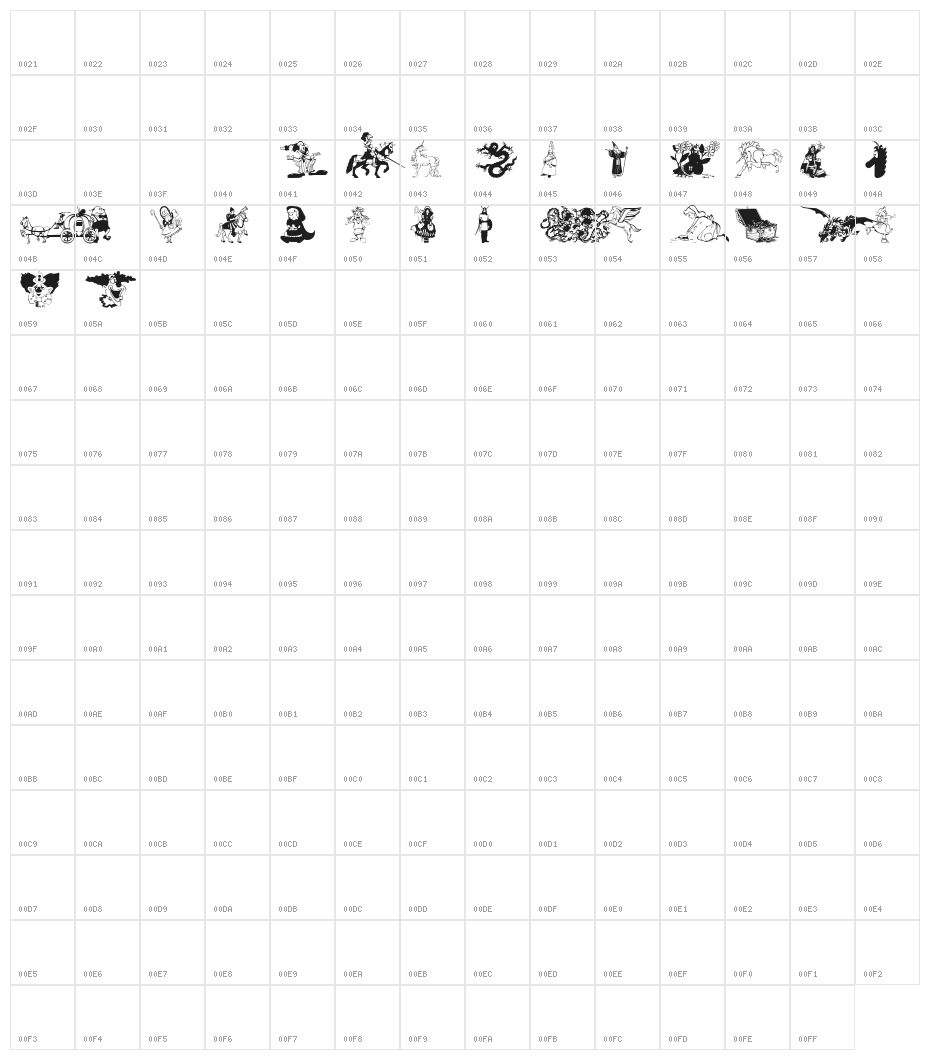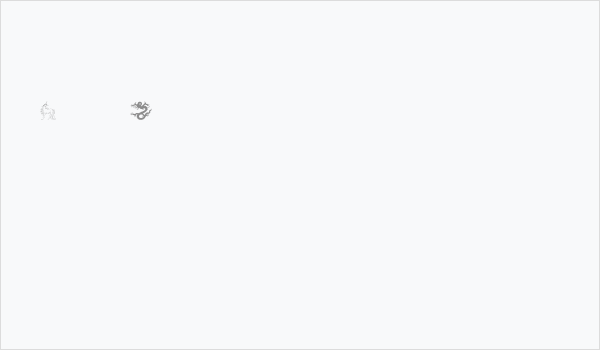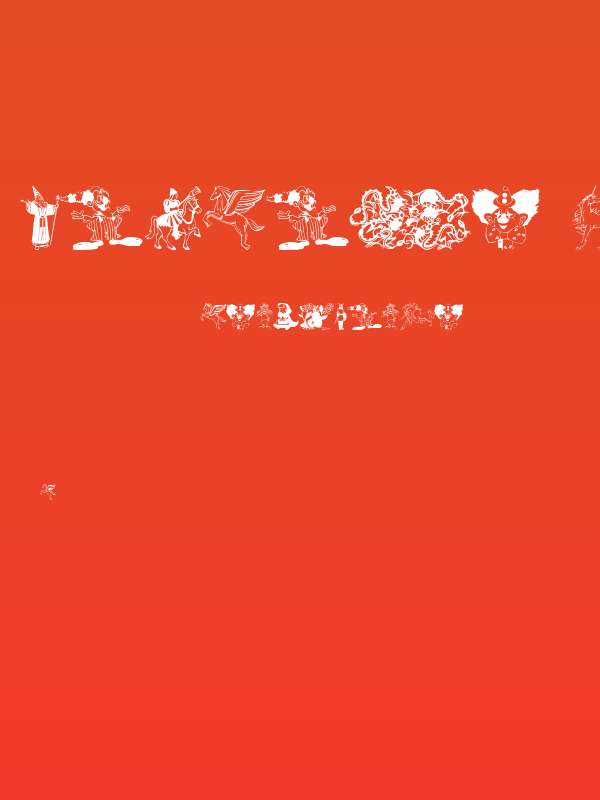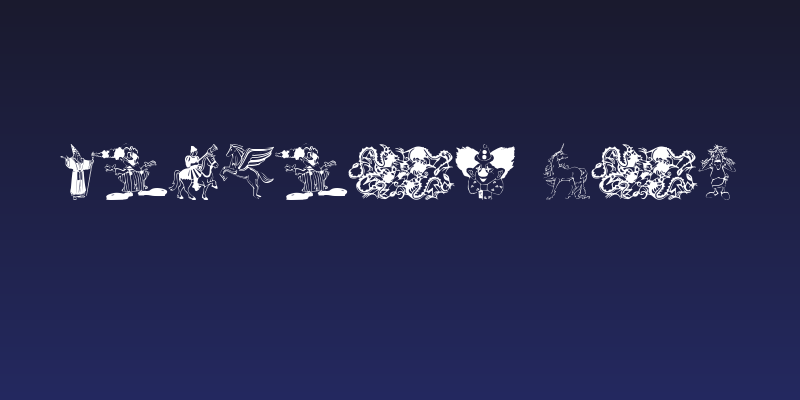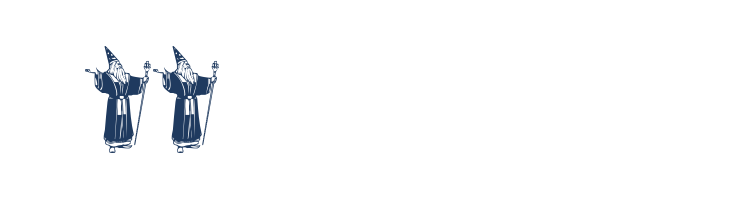
fantasy_csp Font
fantasy_csp Description
A decorative dingbat font featuring detailed fantasy-themed illustrations such as knights, dragons, wizards, mythical creatures, and fairy tale elements. Each character is represented by a unique, intricate black-and-white drawing rather than traditional alphanumeric glyphs.
| Overall Style | Decorative, Fantasy, Illustrative |
| Use Case | Icons, Decorative elements, Themed graphics |
| Proposed Projects | Children's books, fantasy game materials, party invitations, themed posters, scrapbooking, decorative borders. |